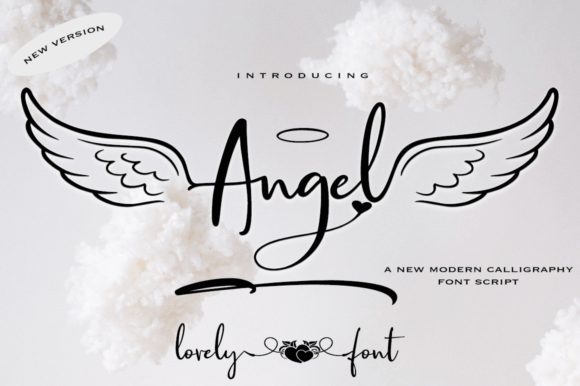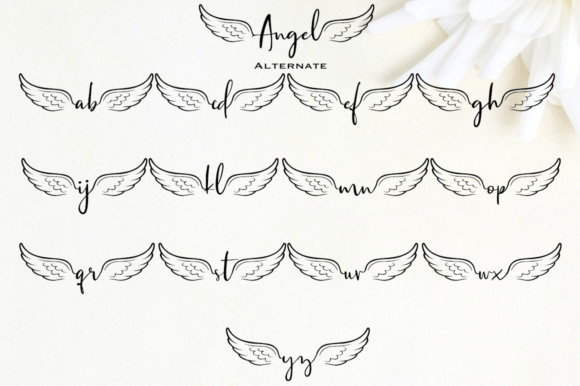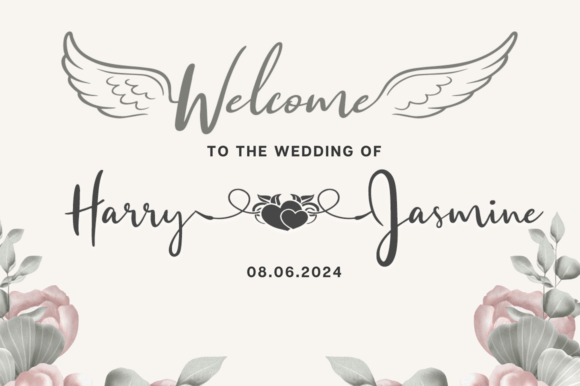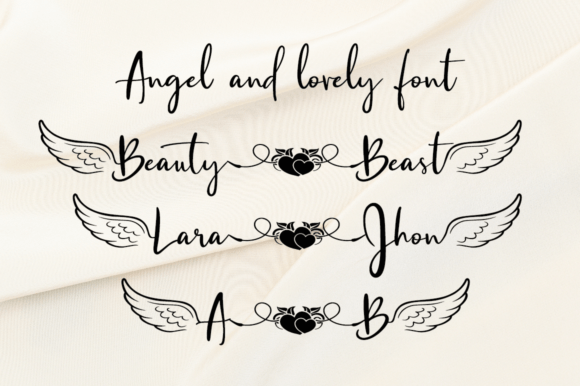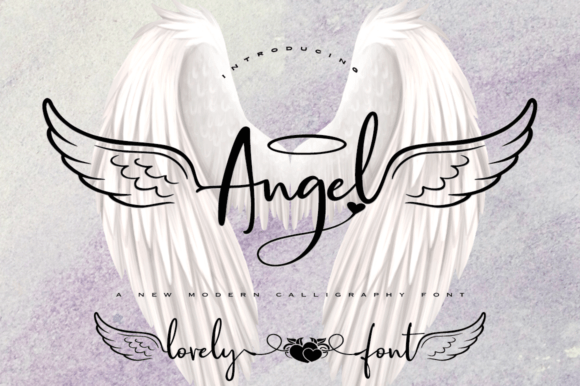
The Creative Spark: Discovering the Timeless Elegance of Angel Font
Have you ever sat at your desk, staring at a blank piece of paper, waiting for inspiration to strike? It’s a moment we’ve all experienced, where the blank canvas seems daunting and the words just won’t flow. But what if you had the perfect tool to spark that creativity and bring your ideas to life? Enter the Angel Font, a modern calligraphy design that’s as beautiful as it is versatile.
With its casual yet elegant feel, Angel Font is the perfect addition to any designer’s toolkit. Whether you’re working on a logo, product packaging, or wedding invitation, this font is sure to add a touch of sophistication and whimsy. Its swash design makes it a standout choice for branding, headlines, and signage, and its PUA Unicode coding ensures that all the additional characters are easily accessible. For designers, the Angel Font is a valuable asset that can elevate any project and bring a touch of magic to the design process.
Angel Font Key Features
- Size: The font has a total of 250 glyphs, providing a comprehensive set of characters for various languages and scripts.
- Unique Characteristics: The font features a distinctive, elegant design with a mix of modern and traditional elements, making it suitable for a wide range of applications, from branding to publishing.
- Language Support: Angel Font includes support for multiple languages, including Latin, Cyrillic, and Greek scripts, making it a versatile choice for global audiences.
Angel Font Review
At first glance, Angel Font seems to be a beautiful and elegant choice for designers. ✨ Its clean lines, rounded edges, and gentle curves evoke a sense of serenity and peace. The font’s versatility makes it suitable for a wide range of applications, from wedding invitations to children’s books.
- ✨ Elegant and refined design, perfect for creating a sophisticated atmosphere
- ✨ Wide range of applications, from formal to informal designs
- ✨ Easy to read and recognize, even at small font sizes
However, there are some limitations to consider. ⚠️ The font’s rounded edges can make it difficult to achieve a sharp, modern look. Additionally, the font’s elegance can sometimes make it feel too sweet or childish, which may not be suitable for more mature or edgy designs.
- ⚠️ Rounded edges can limit the font’s versatility in modern designs
- ⚠️ May feel too sweet or childish for more mature designs
Overall, I would say that Angel Font is a solid choice for designers who want to create a peaceful and elegant atmosphere. While it may have some limitations, its versatility and beauty make it a great option for a wide range of applications. However, designers who prefer a more modern or edgy look may want to consider other options.
Tips for Getting the Most Out of Angel Font
Here are some common use cases for Angel Font:
- Party and event invitations.
- Photography and graphic design projects.
Alternatives to Angel Font
Pacifico is a beautiful, elegant script font perfect for creating a sense of luxury and sophistication. It’s ideal for use in branding, packaging, and advertising where a high-end feel is desired. Compared to Angel Font, Pacifico has a more refined and polished look, making it suitable for a wider range of applications.
Lobster is a fun, playful script font that’s perfect for creating a sense of whimsy and personality. It’s ideal for use in social media graphics, blog posts, and other digital content where a lighthearted tone is desired. Compared to Angel Font, Lobster has a more casual and relaxed feel, making it suitable for a more informal audience.